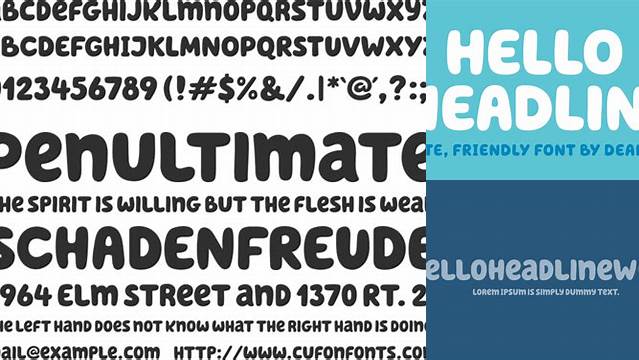
Hello Headline Font: Free Download Guide For Designers
Introduction: Unleashing the Power of Hello Headline Font
Hello Headline font has become a staple in the design world, loved for its versatility and charming aesthetic. If you're on the hunt for a font that can inject personality and flair into your projects, Hello Headline is definitely worth exploring. In this comprehensive guide, we'll delve deep into what makes Hello Headline so special, where you can find it for free download, and how to use it effectively in your designs. Guys, choosing the right font is crucial for making your message pop, and Hello Headline might just be the missing piece in your creative puzzle. Whether you're crafting a logo, designing a website, or putting together marketing materials, this font offers a unique blend of playfulness and professionalism. So, let’s get started and discover the magic of Hello Headline font together! We'll cover everything from its unique characteristics to practical tips for implementation, ensuring you're well-equipped to make the most of this fantastic typeface. Remember, a great font can elevate your entire design, and Hello Headline is a fantastic option to consider. So, keep reading to learn more about its origins, its best uses, and where to snag it for your next project. Trust me, you won't be disappointed!
What Makes Hello Headline Font So Special?
What sets Hello Headline apart from the myriad of fonts available? Its unique blend of modern and whimsical elements is a significant factor. Hello Headline features smooth, flowing lines and a slightly handwritten feel, which gives it a warm and approachable vibe. This makes it perfect for projects that need to convey a sense of friendliness and creativity. The font's distinct character shapes ensure readability while maintaining an eye-catching appeal. Think about it – you want a font that not only looks good but also communicates your message effectively. Hello Headline strikes that balance beautifully, making it a go-to choice for designers aiming for a unique yet professional look. Beyond its aesthetics, the font's versatility is another key advantage. It works wonderfully in various contexts, from logos and branding to social media graphics and website headers. This adaptability means you can use Hello Headline across different platforms and media without losing its impact. The font also boasts excellent legibility, ensuring your text remains clear and readable even at smaller sizes. This is crucial for maintaining a polished and professional appearance, especially in print materials and digital interfaces. Plus, the handwritten touch adds a personal element that can resonate with your audience, making your message feel more authentic and engaging. So, in short, Hello Headline is special because it’s a delightful fusion of style, versatility, and readability – a trifecta that any designer would appreciate!
Tips for Using Hello Headline Font Effectively in Your Designs
So, you've downloaded and installed Hello Headline font – awesome! Now, let's dive into how to use it effectively in your designs. This font is versatile, but like any design element, it shines brightest when used thoughtfully. First off, consider the overall tone and message of your project. Hello Headline has a friendly and slightly whimsical feel, making it ideal for designs that aim to be approachable and engaging. Think logos for creative businesses, invitations, social media graphics, and website headers. However, it might not be the best choice for more formal or serious projects, where a more traditional serif font might be more appropriate. When it comes to typography, contrast is key. Pair Hello Headline with a simpler, more neutral font for body text to ensure readability. A sans-serif font like Open Sans or Lato can create a balanced and professional look. Avoid pairing Hello Headline with another highly stylized font, as this can create visual clutter and make your design look overwhelming. In terms of sizing, Hello Headline works well for headings and larger text elements. Its unique character shapes make it stand out and grab attention. For smaller text sizes, however, it's important to ensure legibility. If you're using it in body text, make sure the font size is large enough and the line height is generous to prevent eye strain. Color also plays a significant role in how Hello Headline is perceived. Experiment with different color combinations to find what works best for your design. The font looks fantastic in bold, vibrant colors, but it can also work well in more muted tones for a softer, more subtle effect. Finally, don't be afraid to play around with the font's stylistic alternates and ligatures (if it has any). These can add extra flair and personality to your designs. By keeping these tips in mind, you can harness the full potential of Hello Headline font and create stunning visuals that captivate your audience. Happy designing!
Alternative Fonts to Hello Headline: Exploring Your Options
While Hello Headline font is a fantastic choice, it's always wise to have a few alternatives up your sleeve. Exploring different fonts can help you discover new favorites and ensure you have the right typeface for every project. If you love the handwritten feel of Hello Headline, fonts like Great Vibes and Pacifico are excellent alternatives. Great Vibes is a beautifully flowing script font that exudes elegance and sophistication, making it perfect for wedding invitations and formal designs. Pacifico, on the other hand, has a more casual and beachy vibe, ideal for projects that need a touch of whimsy and fun. For a more modern and clean alternative, consider fonts like Montserrat and Raleway. These sans-serif fonts offer a sleek and contemporary look that works well in a variety of contexts. Montserrat, in particular, is incredibly versatile, with a range of weights and styles that make it suitable for both headings and body text. If you're looking for something with a bit more personality, Amatic SC is a great option. This condensed sans-serif font has a playful and slightly quirky feel, perfect for headlines and display text. It pairs beautifully with more minimalist fonts, creating a striking contrast. Another noteworthy alternative is Dancing Script, a lively and informal script font that adds a touch of spontaneity to any design. Its bouncy letterforms and flowing lines make it a great choice for projects that aim to convey a sense of energy and enthusiasm. When selecting alternative fonts, always consider the overall aesthetic and message you want to communicate. Experiment with different pairings and styles to find the perfect combination for your project. Remember, the right font can make all the difference in how your design is perceived, so it's worth taking the time to explore your options and discover new favorites. Happy font experimenting!
Conclusion: Embracing the Charm of Hello Headline Font
In conclusion, Hello Headline font is a delightful and versatile typeface that can add a touch of personality and charm to your designs. Its unique blend of modern and handwritten elements makes it a standout choice for a wide range of projects, from logos and branding to social media graphics and website headers. Throughout this guide, we've explored what makes Hello Headline so special, where to find free downloads (safely, of course!), how to install it, and tips for using it effectively in your designs. We've also looked at some fantastic alternative fonts to expand your typographic toolkit. Remember, choosing the right font is crucial for conveying your message and creating a lasting impression. Hello Headline's friendly and approachable vibe makes it a fantastic option for projects that aim to connect with your audience on a personal level. Whether you're a seasoned designer or just starting out, experimenting with different fonts is a great way to develop your creative eye and find your unique style. So, go ahead, download Hello Headline, try out the tips we've discussed, and see how it can transform your designs. And don't forget to explore other fonts as well – the world of typography is vast and exciting, with endless possibilities waiting to be discovered. Ultimately, the best font is the one that perfectly complements your vision and helps you communicate your message effectively. Embrace the charm of Hello Headline, but also be open to exploring other options and finding the perfect typographic voice for your projects. Happy designing, guys! We hope this guide has been helpful and inspiring. Now go out there and create some amazing designs!